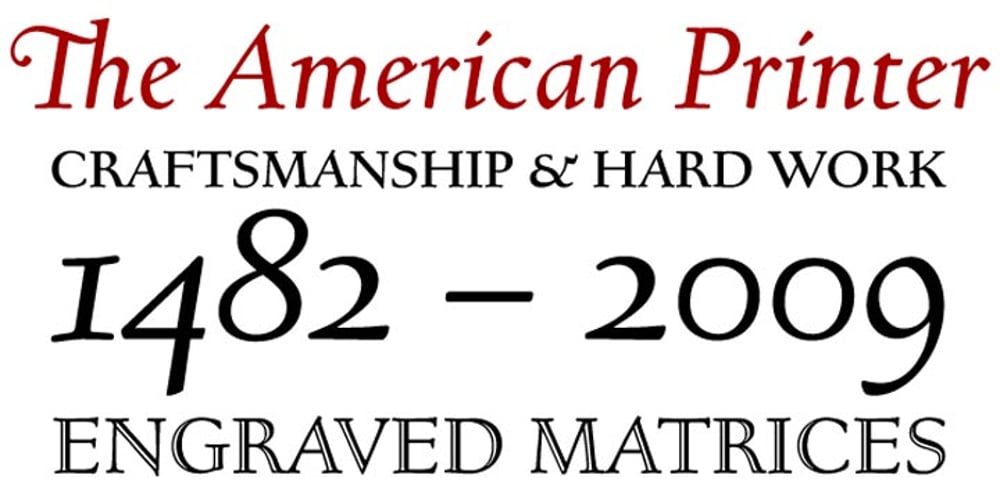
Bertham Font Family was designed by Steve Matteson, Frederic W. Goudy and published by Ascender. Bertham contains 4 styles and family package options. Bertham Pro Family (4 fonts) is a revival of Frederic W. Goudy’s Bertham typeface. Steve Matteson produced this unique typeface and added bold, italic and openface styles. The fonts include a variety of OpenType features including swash capitals, small capitals and old style figures. It is unmistakably American in appearance recalling a day of quality craftsmanship and hard work. Publishing, branding and packaging materials will draw inspired attention due to its grace and distinctive appearance.